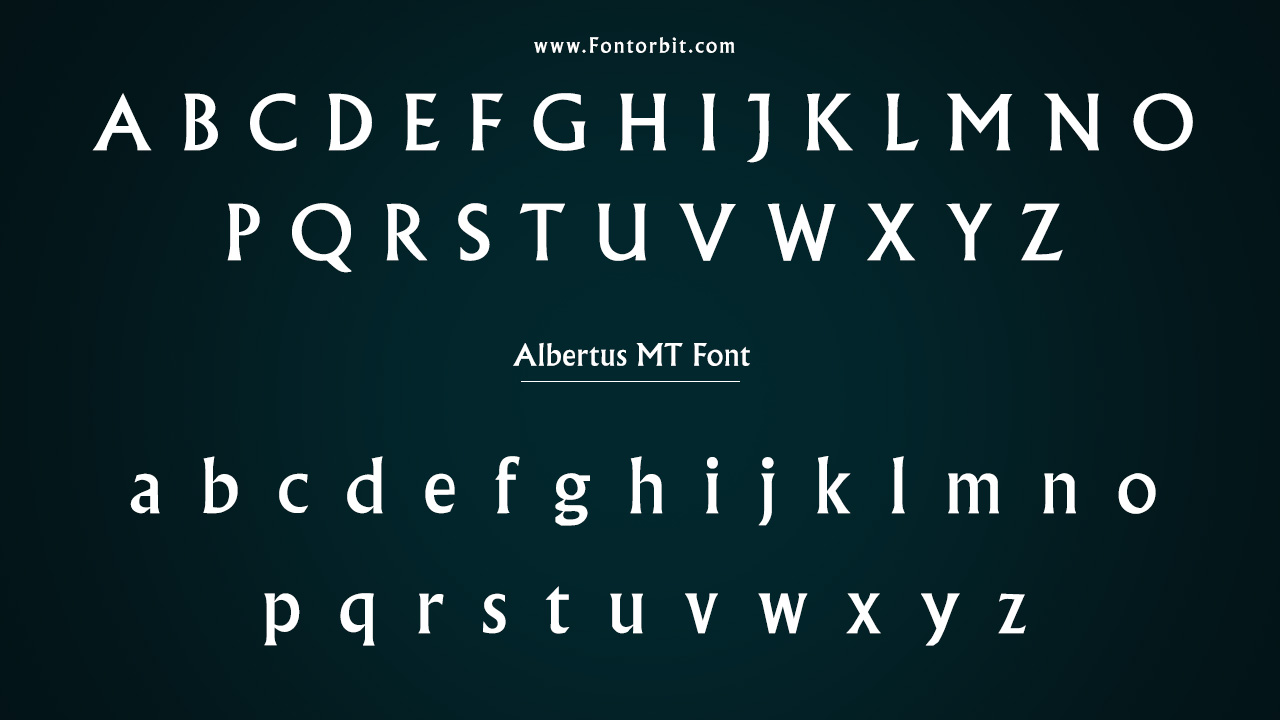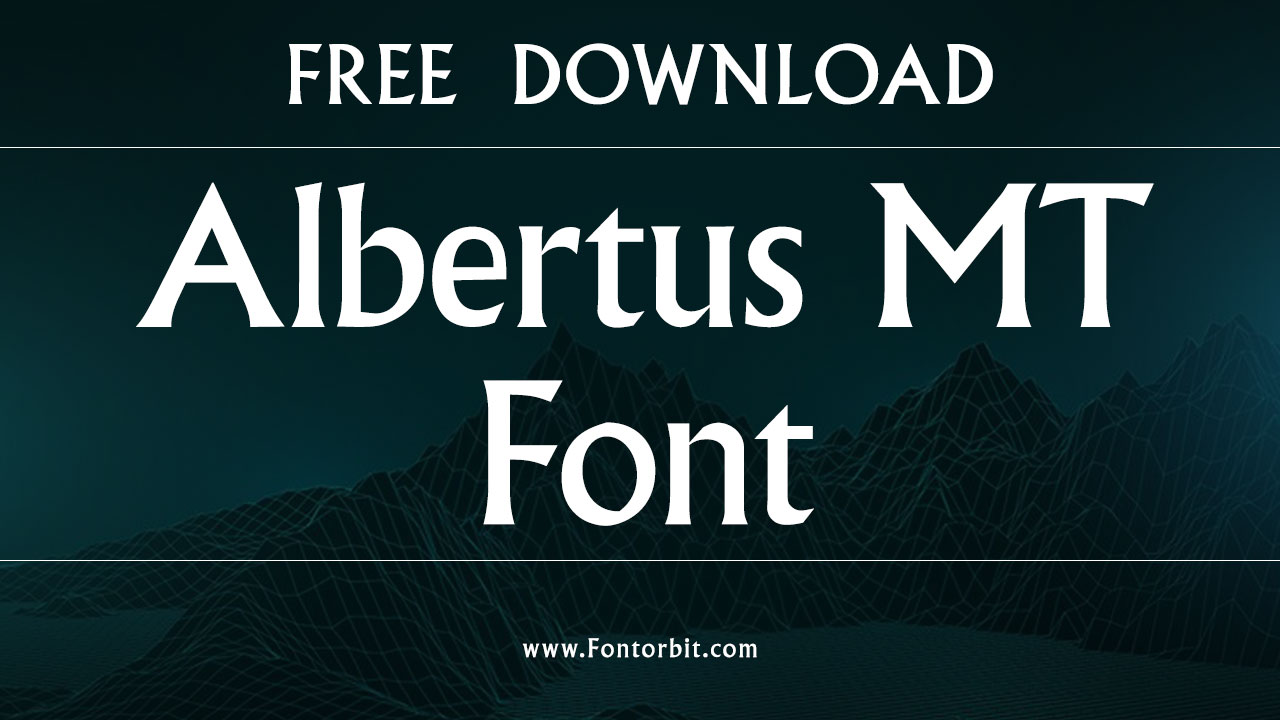
Berthold Wolpe designed the Albertus MT Font. Released in 1932 by Monotype Imaging, this versatile typeface belongs to the Albertus MT Font family. Its unique design combines classic Roman letterforms with a modern twist, making it a popular choice for various design applications.
Albertus MT Font Family Includes
The Albertus MT Font family is characterized by its elegance and readability, making it suitable for display and text usage. Here’s a list of its font variations:
- Albertus MT Book Italic
- Albertus MT Medium Italic
- Albertus MT SemiBold Italic
- Albertus MT Bold Italic
- Albertus MT ExtraBold Italic
- Albertus MT Heavy Italic
- Albertus MT Ultra Italic
Notable Uses Of Albertus
Albertus has been utilized in various settings, including:
- Trailers
- Catalogs
- Newsletters
- Video games
- Tutorial videos
- Advertisements
- Banner and retargeting ads
- Images for websites and blogs
- Posters, banners, and billboards
You can effectively use Albertus in contexts that require a blend of traditional and contemporary aesthetics, such as:
- Editorial design
- Web design
- Packaging
- Invitations and greeting cards
2.What Is The Best Use For Albertus?
It is best used in book covers, advertisements, and corporate branding.
3.What Font Weights Are Available In The Albertus Family?
The family includes Regular, Bold, Italic, and Bold Italic.
5.Is Albertus Good For Web Use?
Yes, it is quite readable and works well in web design.
6.What Type Of Projects Is Albertus Suitable For?
It’s suitable for editorial design, signage, and packaging.